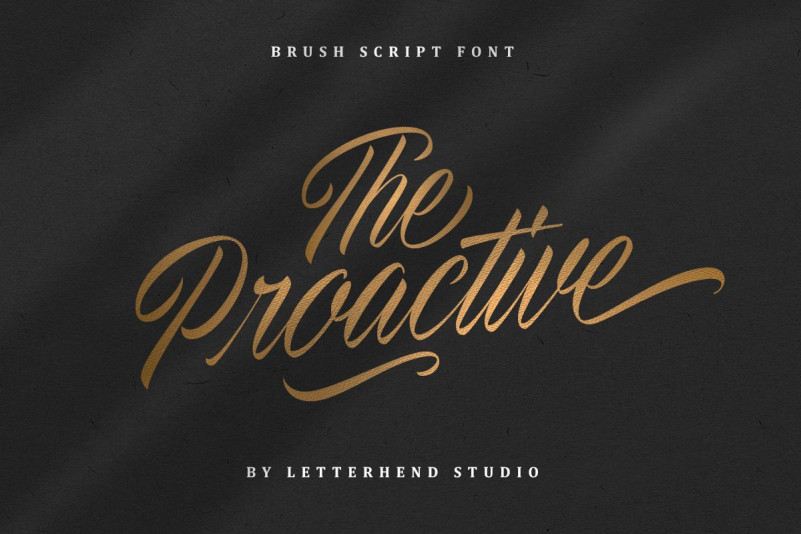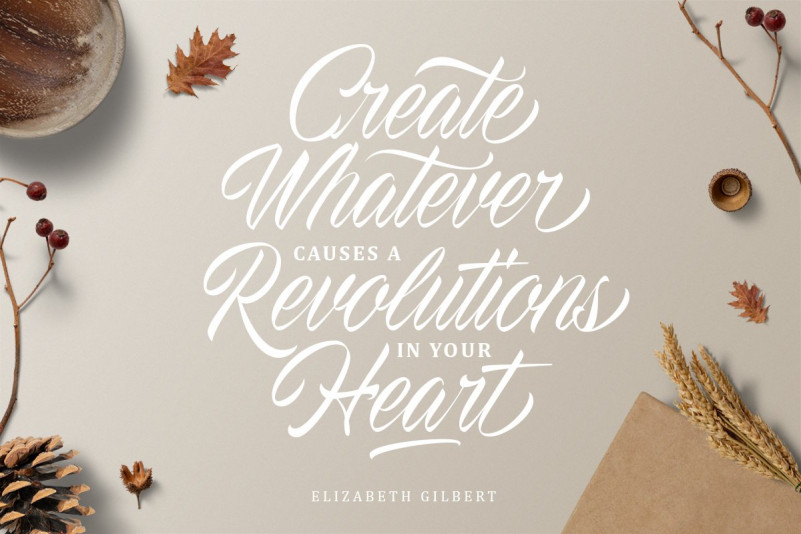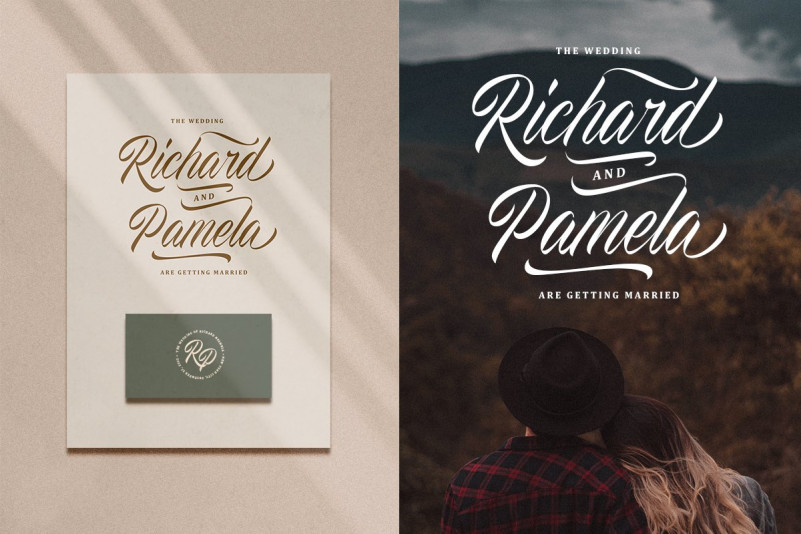
The Proactive Font
The Proactive – Not just another script typeface. In fact, it’s a one of a kind script typeface! What makes it special is this typeface were made from original hand writing and transformed into a font. So you don’t have to be an expert to be a hand lettering artist, you can just use this font and voila you can create your own brush calligraphy! Play around with the swashes and stylistic alternates to make this font even more stands out!